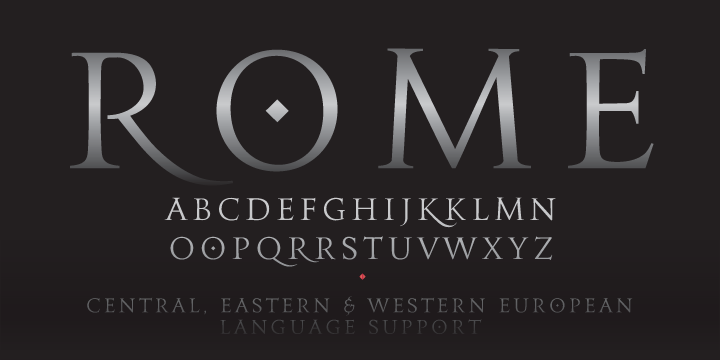
Kommisar is a typeface loosely based on the inscriptions on the Trajan capital in Rome and informed by the structural sensibilities of American signpainter and lettering artist Father Edward Catich.
Perfect for use in advertising, movie posters, movie titles, identity design, or any work needing to convey a sense of authority- Kommisar is also perfect for music packaging and promotion design. More…
Kommisar is perfectly at home in movie titling, band logos across the spectrum- from metal to hip-hop, as well as in use for packaging work. It contains a full Western, Central & Eastern European language character set
What was the inspiration for designing the font?
Kommisar was born out of designing a logo for a black metal band based in Tokyo- in lieu of the usual spiky treatment, the band wanted something lean and super-classical. Halfway through the design process, the band changed their name, and with the subsequent name change, I had more than half of a whole alphabet designed. I decided to fill out the remaining character set, fiddled with spacing and alternates, and lo and behold- this font was born.
What are its main characteristics and features?
Kommisar looks to antiquity, yet is decidedly contemporary. The base is reliant upon well-proportioned classical Roman capitals, yet small details such as the diamond shape within the uppercase “O” and the chisel-shaped dots on the lowercase “I” and “J” give it a playful, yet sinister nuanced finish.
Usage recommendations: Kommisar would be great for web, broadcast or print use- it’s sufficiently classical in appearance to work well for movie titling, yet has enough personality to be used for band logos. My hope is that it will see a lot of use across a variety of media.